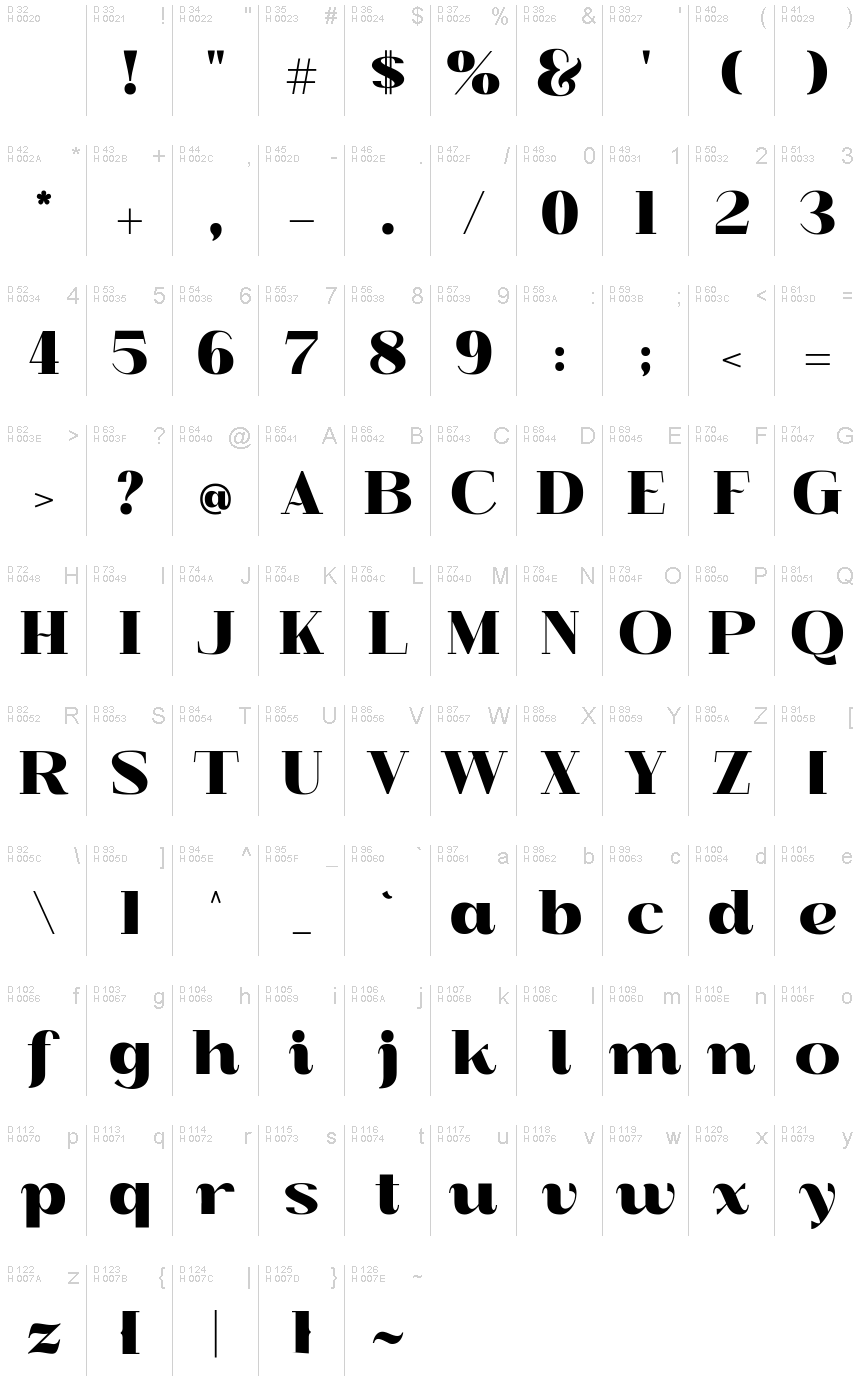
Kingkey Neue Demo Black
Kingkey Neue Black ushers in a sense of regal boldness with its striking serifs and robust character. Crafted by TypeClassHeroes, this member of the Kingkey family exudes confidence and strength through its pronounced letterforms. The font's assertive presence is matched by a touch of elegance, making it a versatile choice for those seeking to make a memorable impression.
Its commanding appearance lends itself well to headlines, branding, and any application where the goal is to stand out with a mix of sophistication and audacity. From the pages of high-end magazines to the front windows of luxury boutiques, Kingkey Neue Black is poised to elevate the visual narrative wherever it appears.